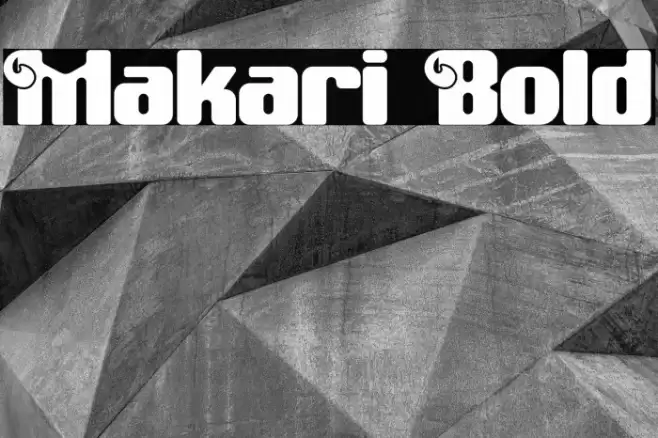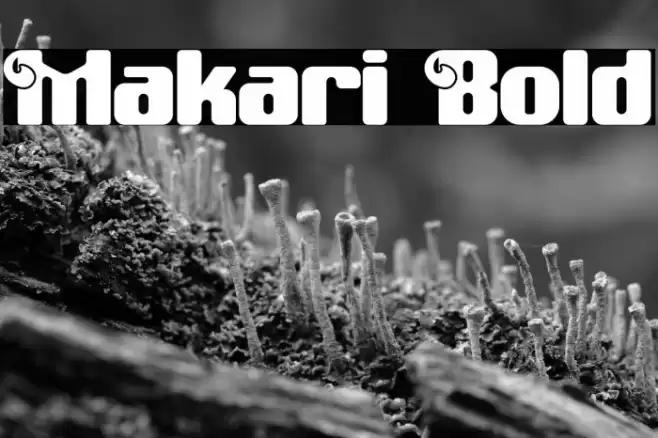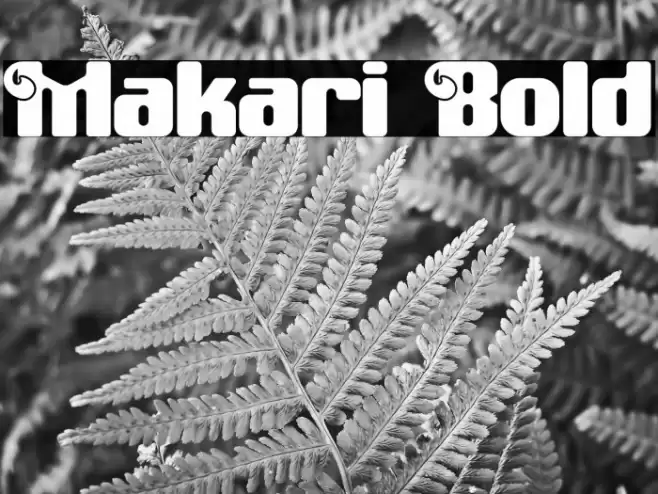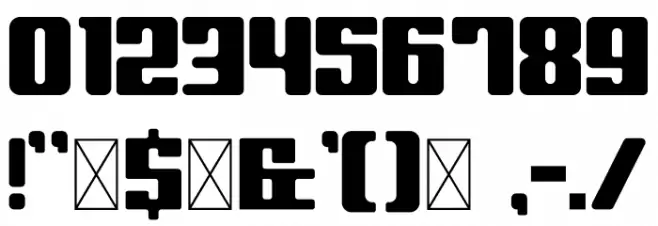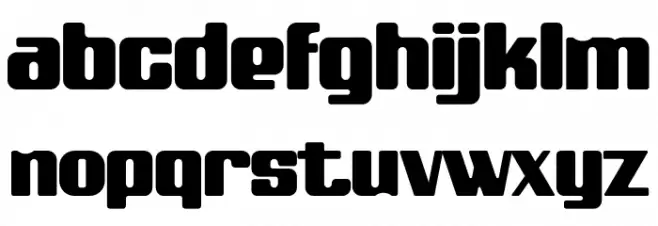
Makari Bold Font
Makari Bold Description
This font features a bold and decorative style with unique, swirling embellishments on certain characters, adding a playful and artistic flair. The uppercase letters are particularly ornate, with intricate curls that give a sense of movement and creativity. The lowercase letters maintain a bold presence, though they are more straightforward in design compared to the uppercase. The numbers and special characters are consistent with the bold and decorative theme, ensuring a cohesive look across all glyphs. This font's strong visual impact makes it ideal for attention-grabbing designs.
A bold, decorative font with swirling embellishments and a strong visual impact from Uncategorized fonts.
- Proposed Projects: Ideal for poster designs, branding projects, album covers, and any creative work that requires a bold statement.